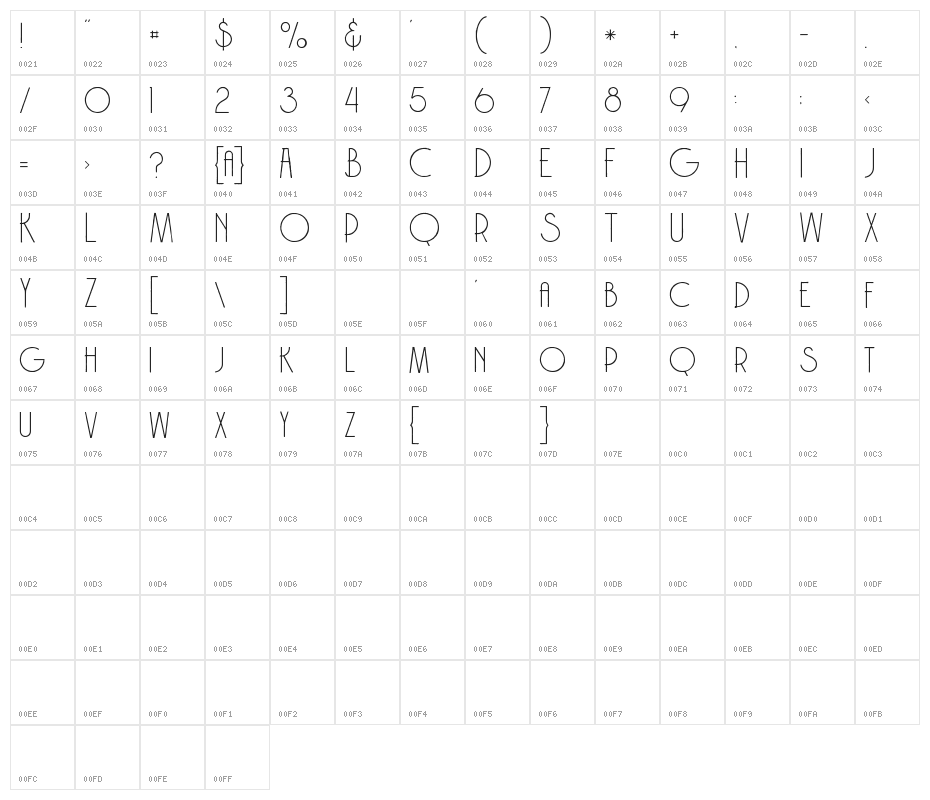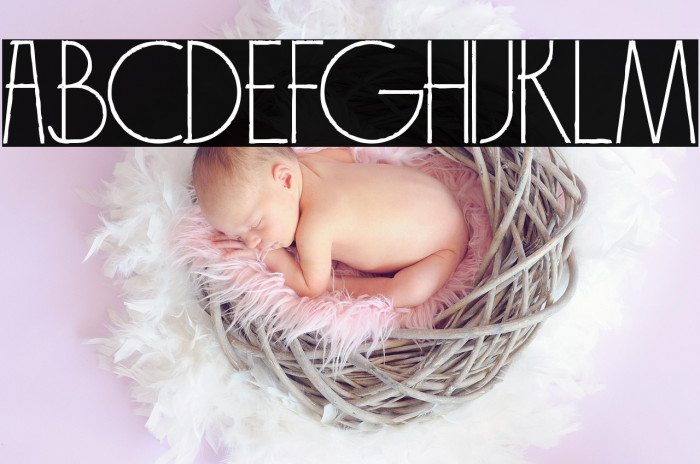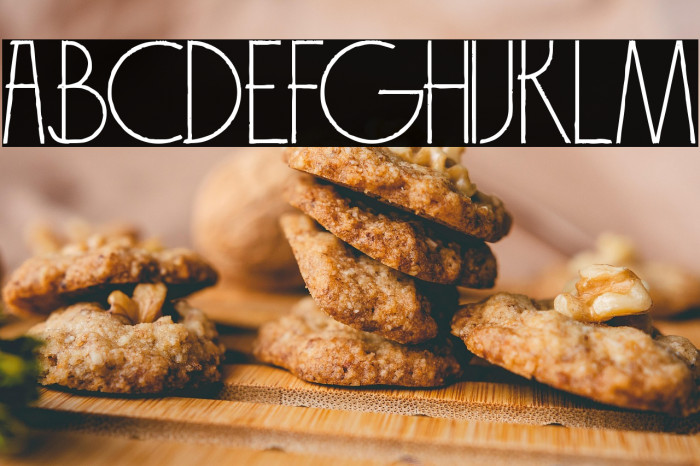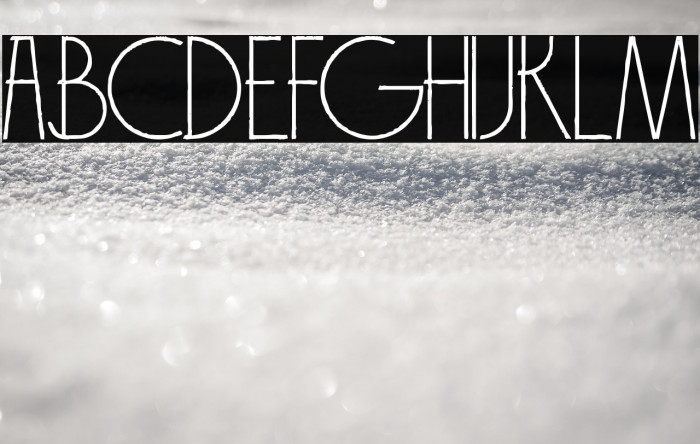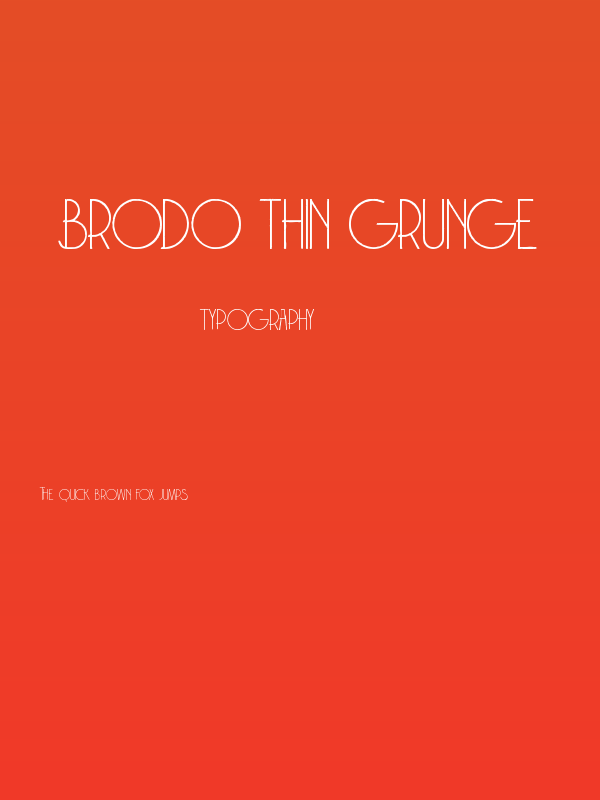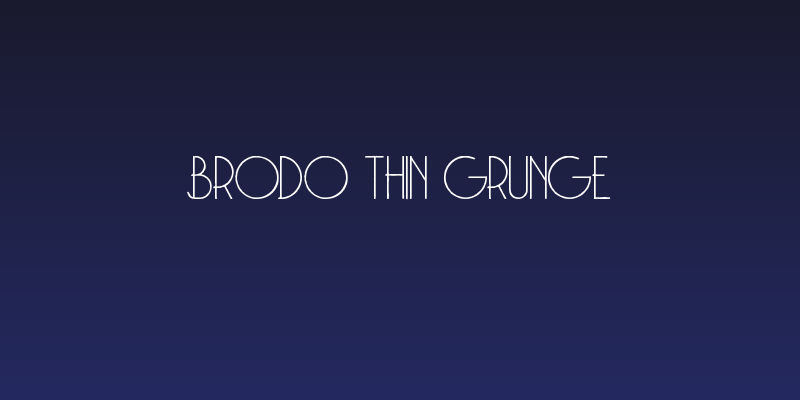
Brodo Thin Grunge Font
Brodo Thin Grunge Description
This font features a thin, elegant design with a grunge aesthetic, characterized by its elongated and narrow letterforms. The uppercase and lowercase letters maintain a consistent height, creating a uniform appearance. The numerals are distinct and match the overall style, while the special characters add a touch of uniqueness. The font's strokes are clean and precise, with a slight irregularity that enhances its grunge appeal. This combination of modern and vintage elements makes it versatile for various design projects.
| Overall Style | Modern, Vintage |
| Proposed Projects | Ideal for posters, album covers, fashion branding, and editorial design. |